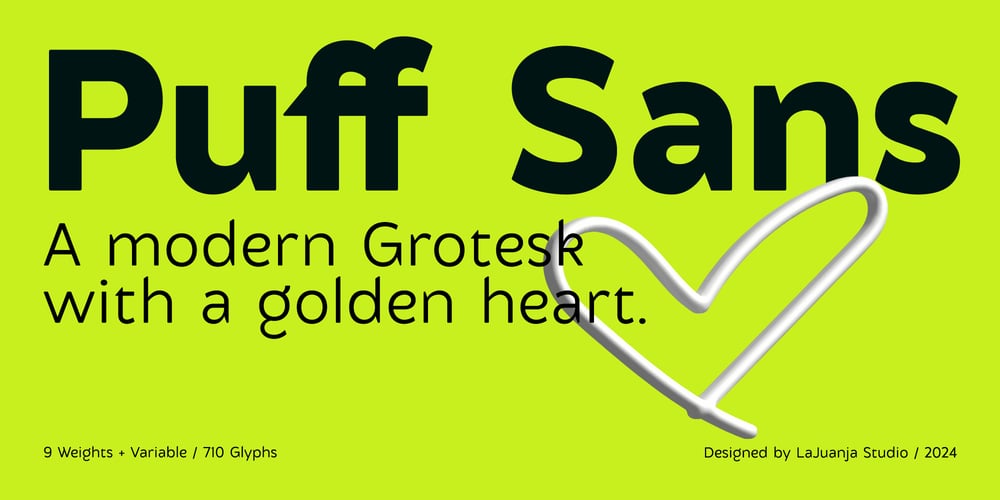
Puff Sans Font Family was designed by Juan José Martínez Calle and published by Plétora Type. Puff Sans contains 9 styles and family package options. Puff Sans is a contemporary sans serif typeface known for its strong personality and warm, approachable design, thanks to its rounded corners. Perfect for large sizes, though equally suitable for body text, it features a set of over 700 glyphs covering the entire Latin alphabet, along with OpenType features for a comprehensive typographic experience.